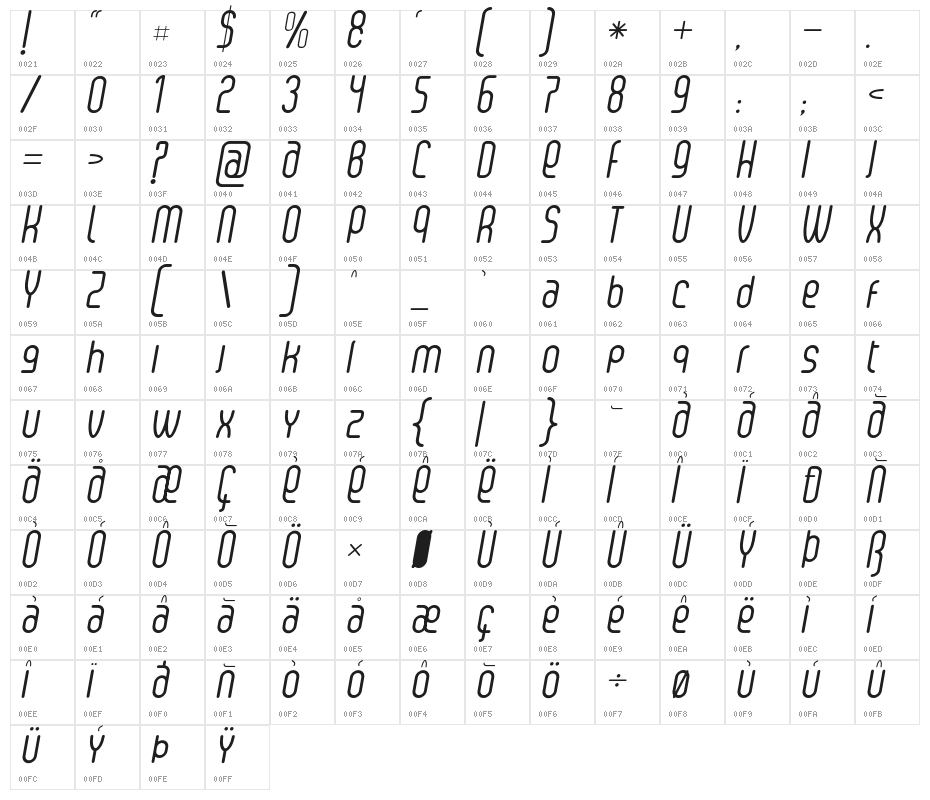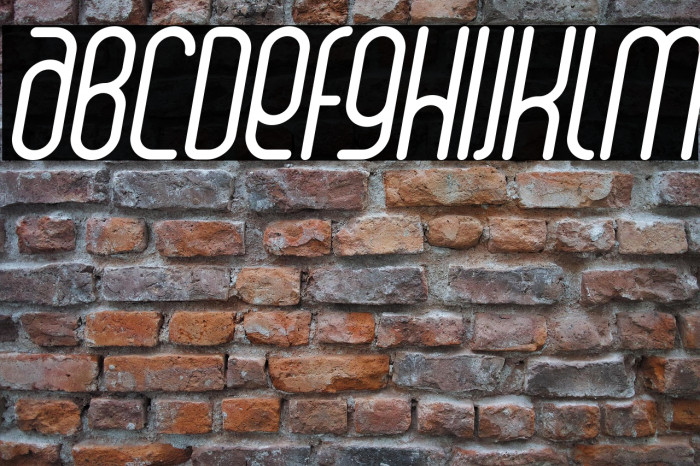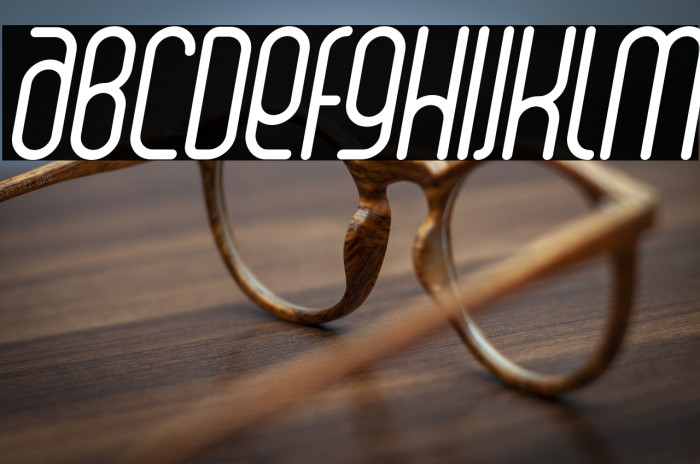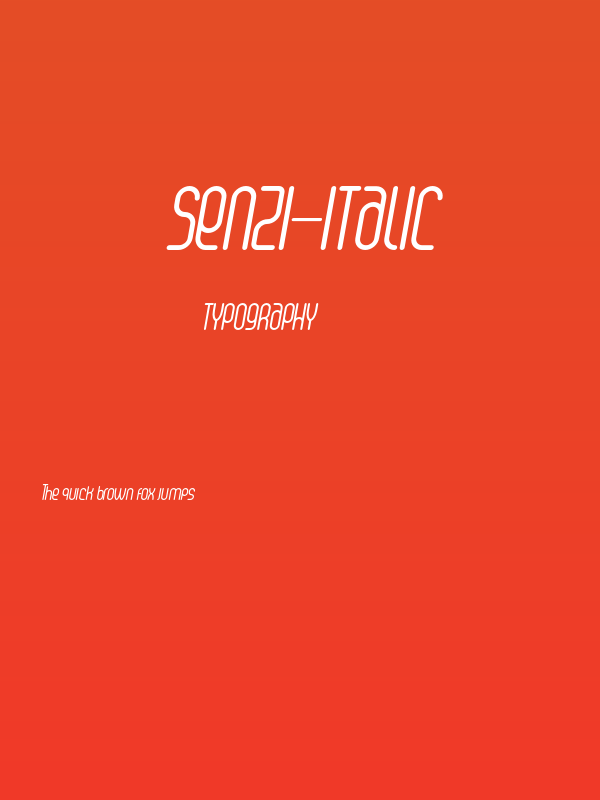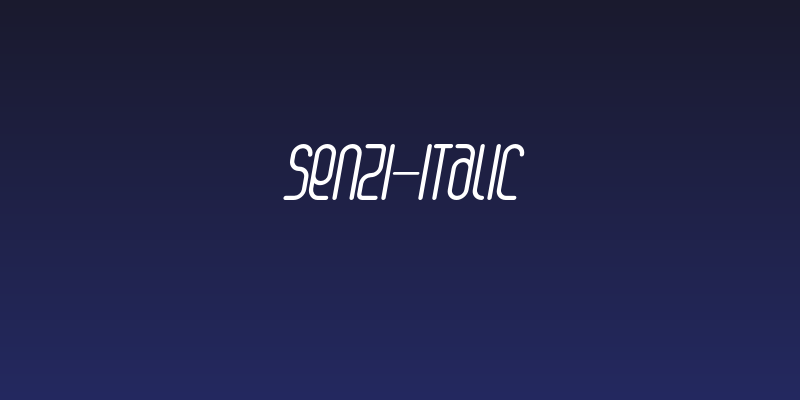
Senzi-Italic Font
Senzi-Italic Description
This font features a sleek, modern design with a distinct italic slant, giving it a dynamic and forward-moving appearance. The characters are elongated with rounded edges, contributing to a smooth and fluid aesthetic. The uppercase and lowercase letters maintain a consistent style, with a uniform stroke width that enhances readability. The numerals are designed to match the overall style, ensuring a cohesive look across different text elements. Special characters are included, maintaining the same sleek and modern design. This font is ideal for projects that require a contemporary and stylish touch.
| Proposed Projects | Ideal for branding, advertising, and modern web design projects. |